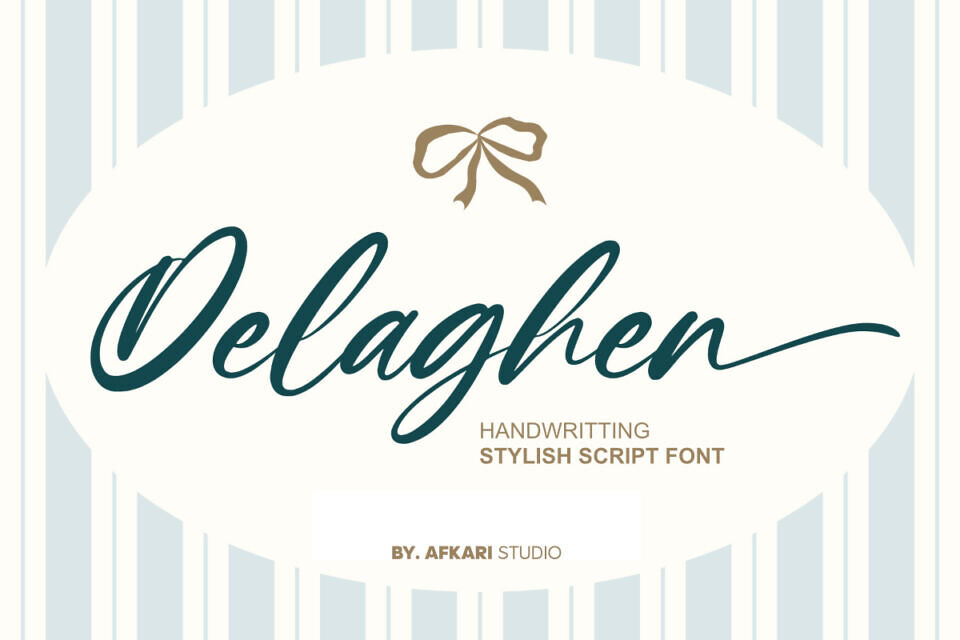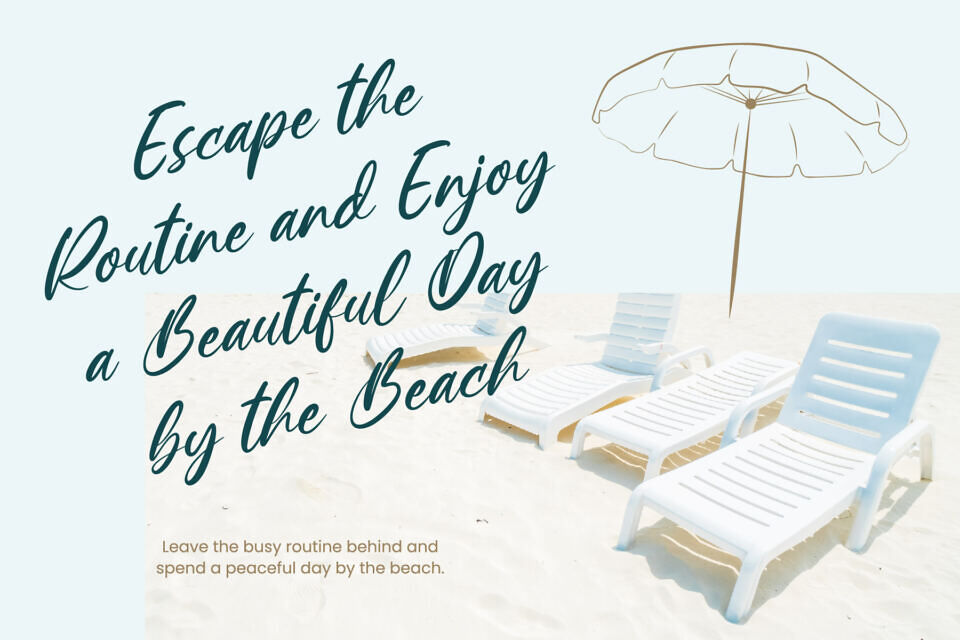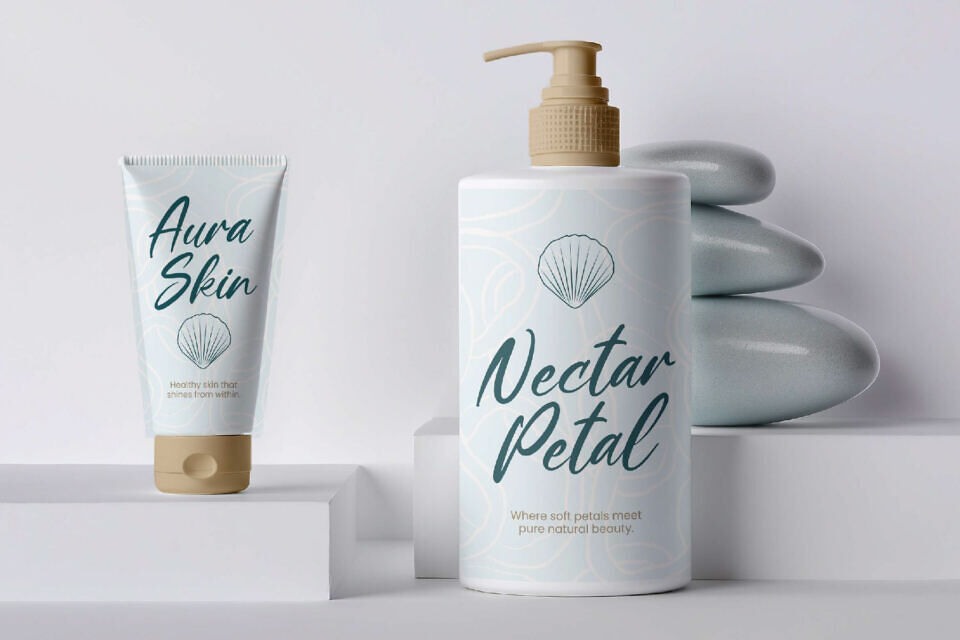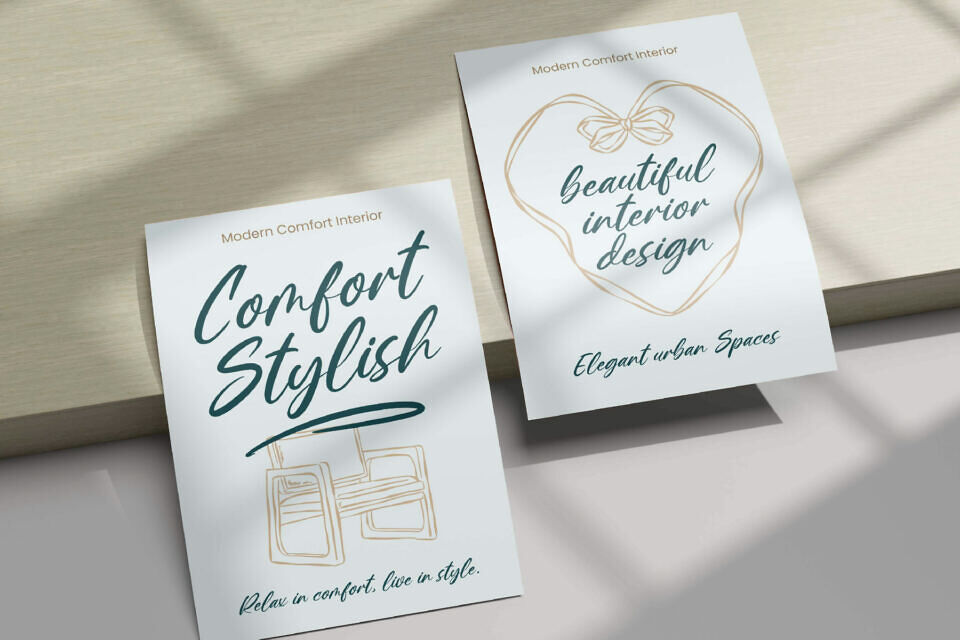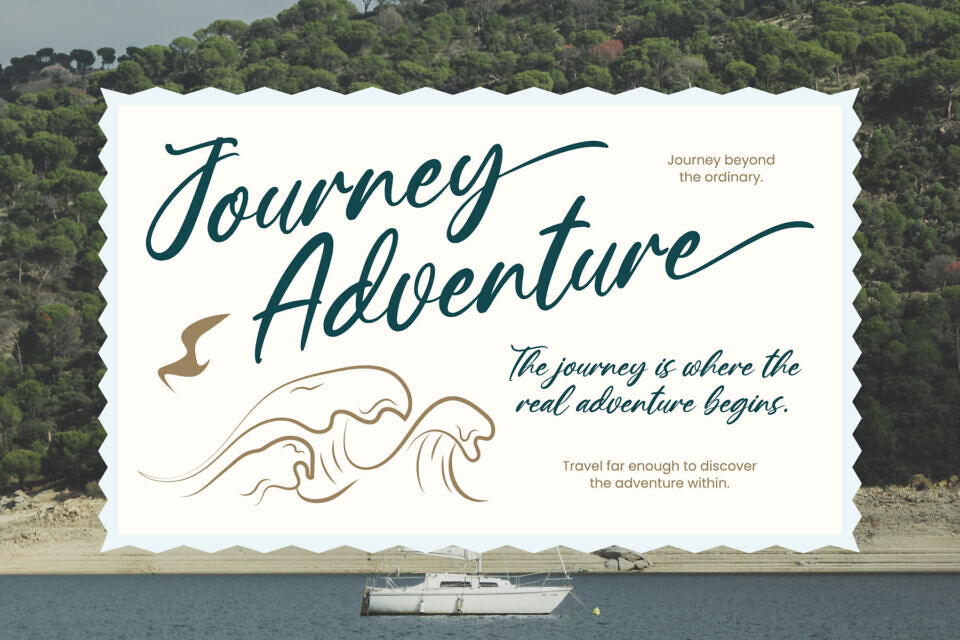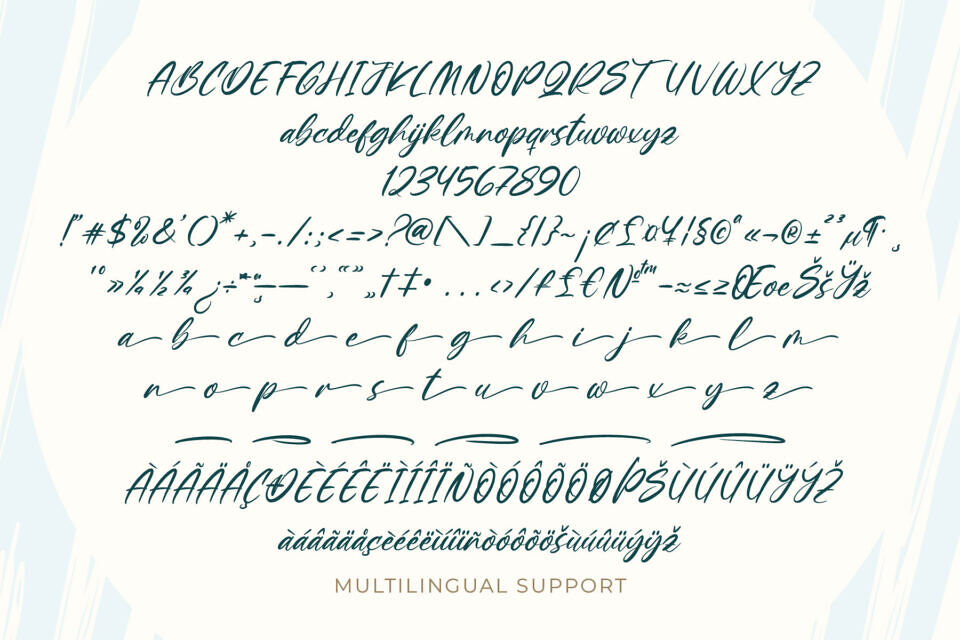
Delaghen Font
Delaghen is a stylish handwriting script font that blends elegance with a natural handwritten flow. Designed with smooth curves and refined strokes, this font delivers a graceful and modern look while maintaining the warmth and personality of real handwriting.
With its fluid letterforms and stylish character, Delaghen is perfect for creating sophisticated yet approachable designs. Whether you’re designing branding materials, wedding invitations, social media graphics, or packaging, Delaghen offers a versatile and polished script style that enhances any visual composition.